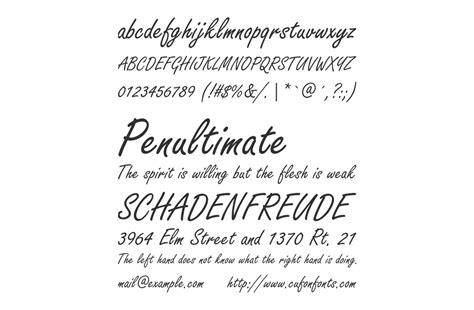
Freestyle Script Font: The Ultimate Guide
Hey guys, let's dive into the awesome world of freestyle script fonts ! If you're looking to add a touch of personality, flair, and a whole lot of *elegance* to your designs, then you've come to the right place. Freestyle script fonts are like the free spirits of the typography world – they're often characterized by their flowing, connected strokes that mimic natural handwriting. They can range from super casual and playful to incredibly sophisticated and formal, but they always bring a unique energy that standard fonts just can't match. Think of wedding invitations, birthday cards, logos for boutique businesses, or even just a cool quote you want to share on social media. A well-chosen freestyle script font can elevate your message and make it truly memorable. But with so many options out there, how do you pick the perfect one? That's what we're here to break down for you today. We'll explore what makes a freestyle script font stand out, where you can find them, and how to use them effectively without making your text unreadable. So, buckle up, because we're about to unlock the secrets to using these gorgeous fonts like a pro! Whether you're a seasoned designer or just dipping your toes into the design pool, understanding the nuances of script fonts will be a game-changer for your projects.
Understanding Freestyle Script Fonts
Alright, so what exactly makes a font a freestyle script font ? At its core, a script font is designed to mimic handwriting. The 'freestyle' aspect usually implies a bit more freedom and personality injected into the design, moving away from the strict formality of some traditional scripts. You'll often see *swashes*, *ligatures* (where two or more letters are joined together), and a general sense of movement. They can be bouncy, elegant, casual, or even a bit quirky. The key is that they don't adhere to rigid, uniform letterforms. Instead, they flow, connect, and often have variations in stroke weight, much like real handwriting. This organic feel is what gives them their charm and versatility. When you’re browsing, you might notice different subcategories. Some are very *brush-like*, mimicking the bold strokes of a calligraphy brush. Others are more like a *pen script*, delicate and flowing. Then there are those that are intentionally *sloppy* or *hand-drawn*, giving a very informal, almost doodle-like vibe. The best freestyle script fonts strike a balance between readability and artistic expression. It's a fine line, guys! A font that's *too* decorative can become a nightmare to read, especially at smaller sizes or on screens. Conversely, a script that's too simple might lose that unique freestyle flair. The beauty of these fonts lies in their ability to convey emotion and personality. A formal script might feel classic and sophisticated, perfect for a wedding invitation. A casual, bouncy script could be ideal for a children's book or a fun, retro-themed design. When choosing, always consider the context and the overall message you want to send. Don't just pick a font because it looks pretty; pick it because it *fits*. Think about the feeling you want your audience to experience. Do you want them to feel pampered, excited, nostalgic, or inspired? The right freestyle script font will do all that and more. It’s not just about the letters; it’s about the story they tell and the emotions they evoke. Mastering this is crucial for any designer looking to make a real impact.
Tips for Using Freestyle Script Fonts Effectively
Okay, finding the perfect freestyle script font is only half the battle. The real magic happens when you know how to use it effectively! Trust me, guys, a beautiful script font can quickly turn into a chaotic mess if not handled with care. One of the golden rules? Readability is key . While freestyle scripts are all about flair, they still need to be understood. Avoid using overly ornate or condensed scripts for large blocks of text. They are best suited for headlines, short phrases, or accent elements. Think of them as the cherry on top, not the entire cake! Pairing is another crucial skill. Script fonts often look best when paired with a simpler, more legible font. A classic combination is a stylish script for your main title or a call-to-action, paired with a clean sans-serif or serif font for the body copy. This contrast helps the script font pop without overwhelming the reader. Always test your pairings at different sizes to ensure they work harmoniously. Another tip is to use them strategically . Don't go overboard! Using too many different script fonts, or using a script font on every single element, will make your design look cluttered and unprofessional. Reserve them for moments where you want to emphasize something or add a touch of personality. For instance, use a beautiful script for your name on a business card, or for the 'Happy Birthday' on a party invitation. Consider the context of your design. Is it for a formal event? A casual blog post? A playful children's brand? The vibe of the freestyle script font should match the overall tone of your project. A delicate, flowing script might be perfect for a wedding, while a bold, brush script could be great for a band's logo. Finally, play with letter spacing (kerning) and line spacing (leading) . Script fonts, especially those with lots of swashes and connections, often need a little tweaking to look just right. You might need to adjust the space between certain letter pairs to avoid awkward overlaps or gaps. Similarly, ensure your lines of text have enough breathing room so they don't become a jumbled mess. Most design software allows you to fine-tune these aspects. Taking the time to adjust these settings can transform a good-looking script font into a truly stunning typographic element. Remember, it's all about balance and intention. Use these fonts to enhance your message, not to complicate it. With a little practice, you'll be a freestyle script pro in no time!
When to Choose a Freestyle Script Font
So, you’ve got your eye on a gorgeous freestyle script font , but you’re wondering,